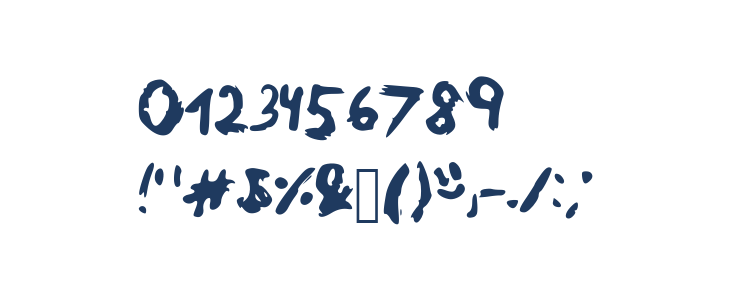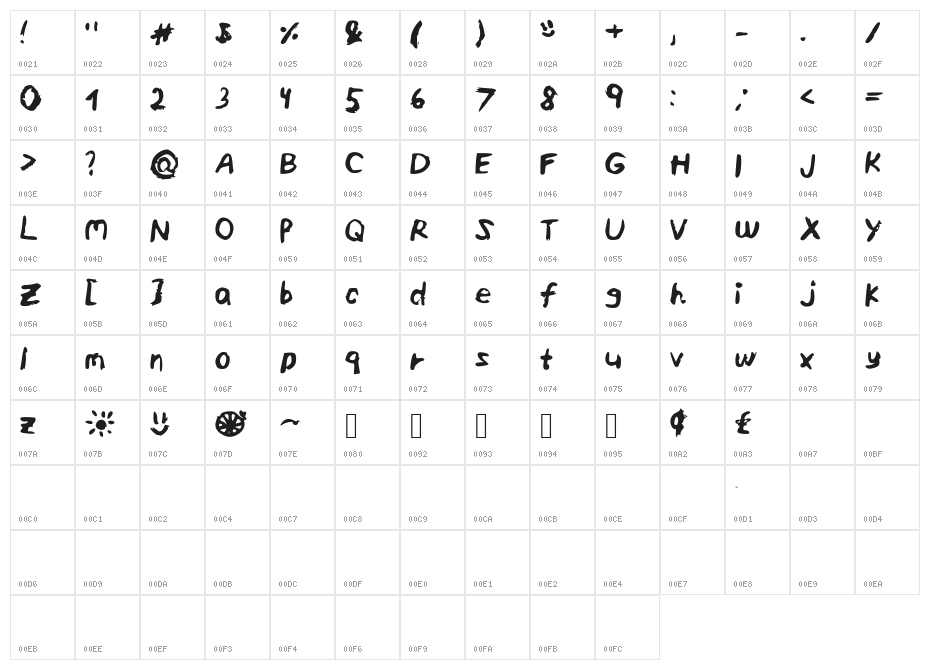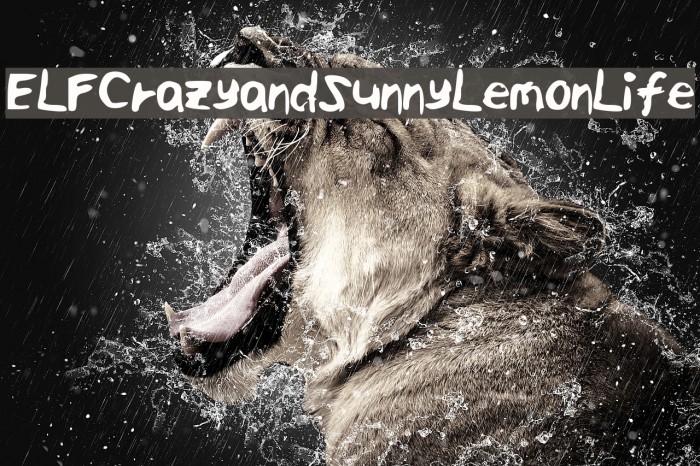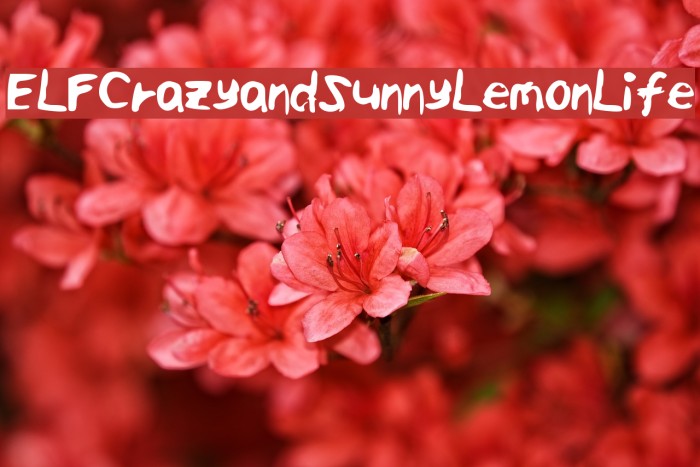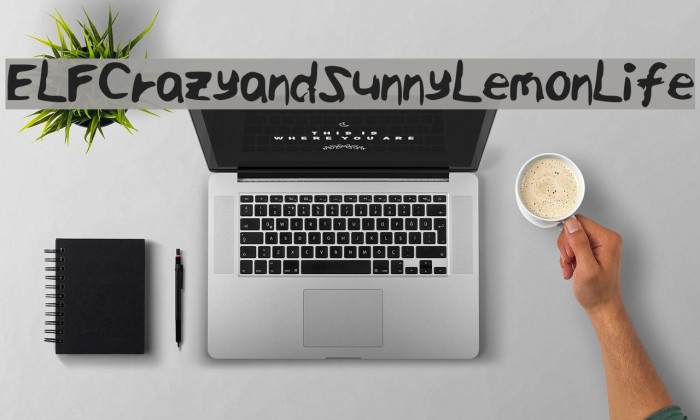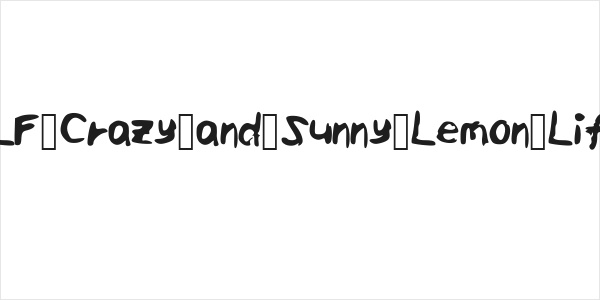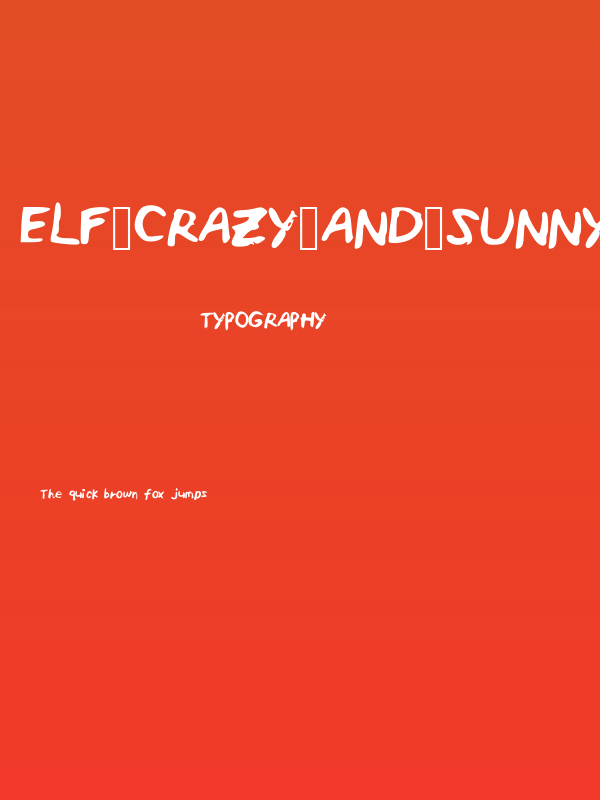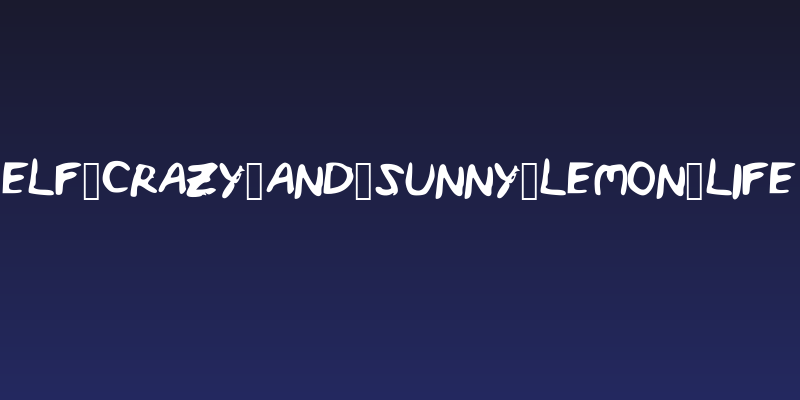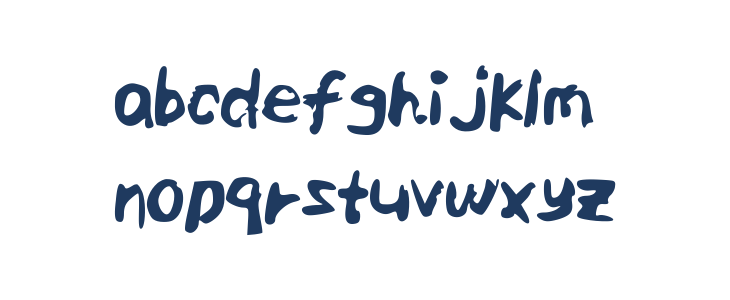
ELF_Crazy_and_Sunny_Lemon_Life Font
ELF_Crazy_and_Sunny_Lemon_Life Description
This font exudes a playful and energetic vibe, characterized by its bold and irregular strokes. The letters have a hand-drawn appearance, with varying thickness and a slightly chaotic structure that adds to its whimsical charm. The uppercase and lowercase letters maintain a consistent style, with rounded edges and a dynamic flow. Numbers and special characters follow the same lively design, making the font suitable for creative and informal projects. Its unique style captures attention and conveys a sense of fun and spontaneity.
| Proposed Projects | Ideal for children's books, playful branding, greeting cards, and creative posters. |